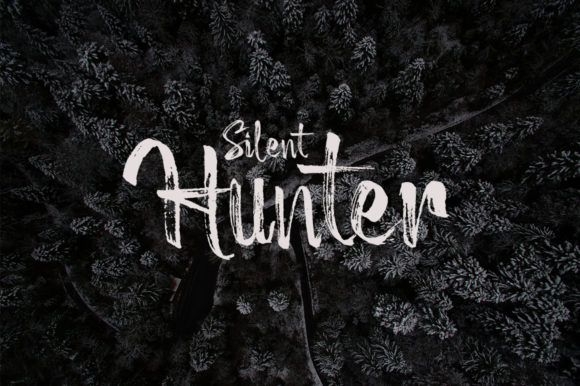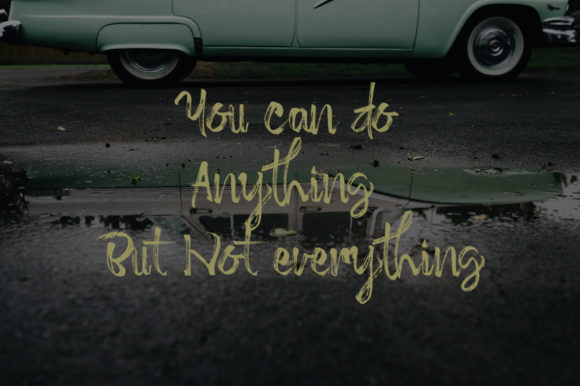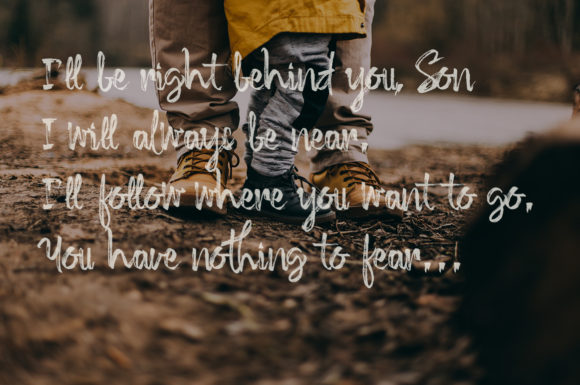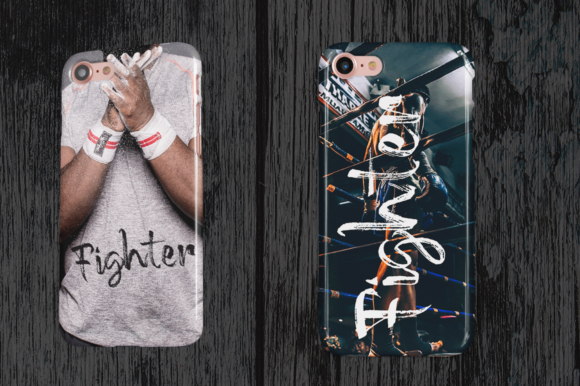
HomeScript FontsOctopus Font Script Fonts Octopus Font FacebookXPinterestWhatsApp Octopus Font Poster 2 Octopus Font Poster 3 Octopus Font Poster 4 Octopus Font Poster 5 Octopus Font Poster 6 Octopus Font Poster 7 About Octopus Font Octopus was designed to look as natural as possible, which gives it an extremely authentic touch. DOWNLOAD NOW People also explored Rogy Silent Death Font Morning Gold Font Blora Font Saturday Misthic Font Christmas Font Drive Hearts Font The Lughokk Font 316 0 TagsOctopus Font Previous articleJazzy Raptor FontNext articleWinter Star Font LEAVE A REPLY Cancel reply Comment: Please enter your comment! Name:* Please enter your name here Email:* You have entered an incorrect email address! Please enter your email address here Website: Save my name, email, and website in this browser for the next time I comment. Personal Use Free Autumn Flowers Font Personal Use Free Read more about this font Breather Personal Use Free Read more about this font Vanity Personal Use Free Read more about this font Anggraini Personal Use Free Read more about this font BLOG Fonts That Capture the Spirit of New York City New York City is more than just a place—it’s an experience, a rhythm, a visual language... 5 Fonts That Will Dominate Design Trends in 2026 Best Fonts for T-Shirt Design – Top 2025 Picks Modern Sans-Serif Fonts That Brands Love in 2025